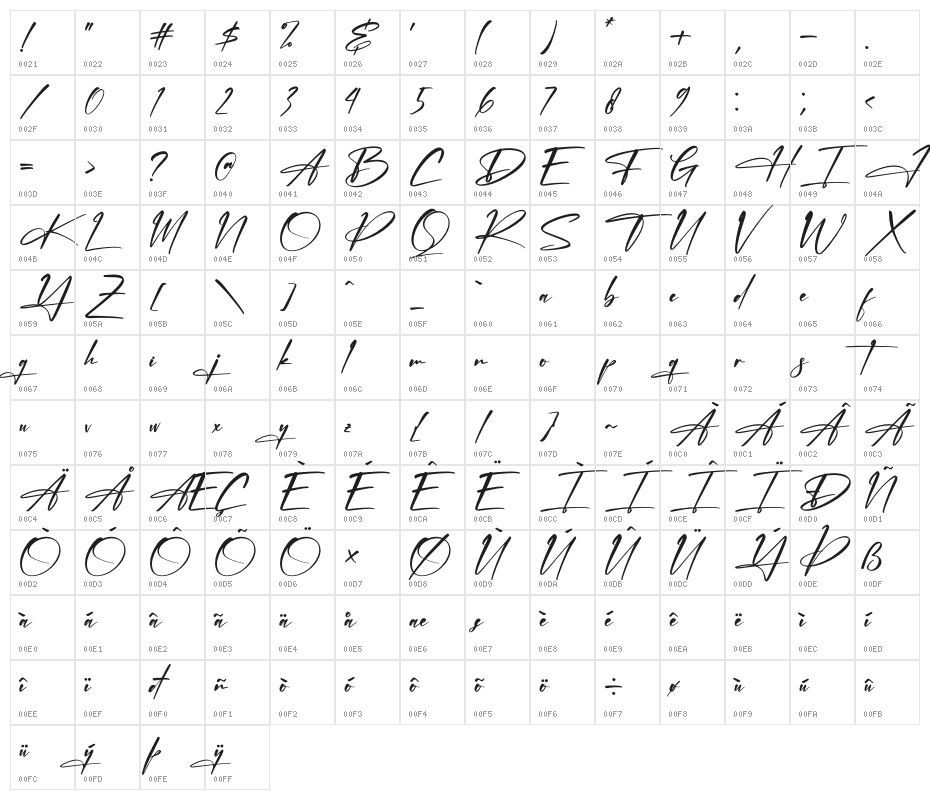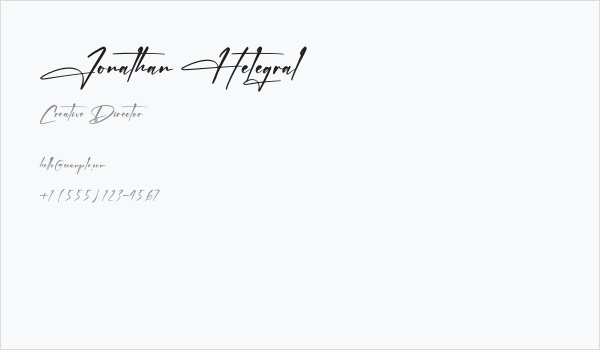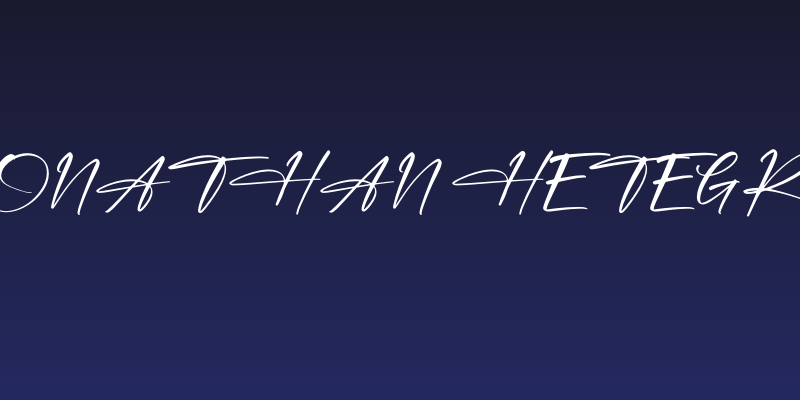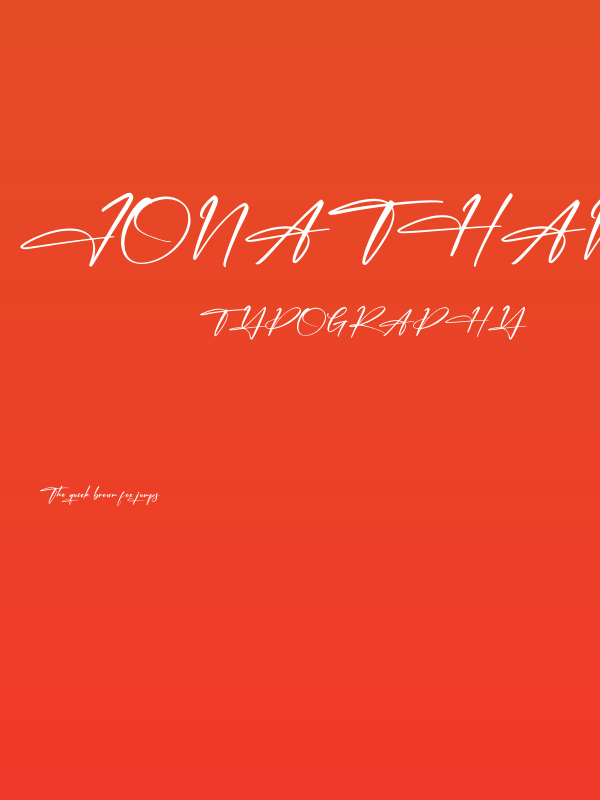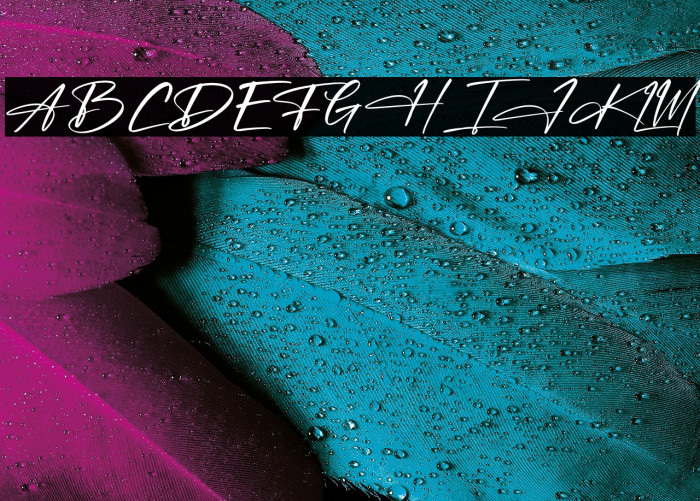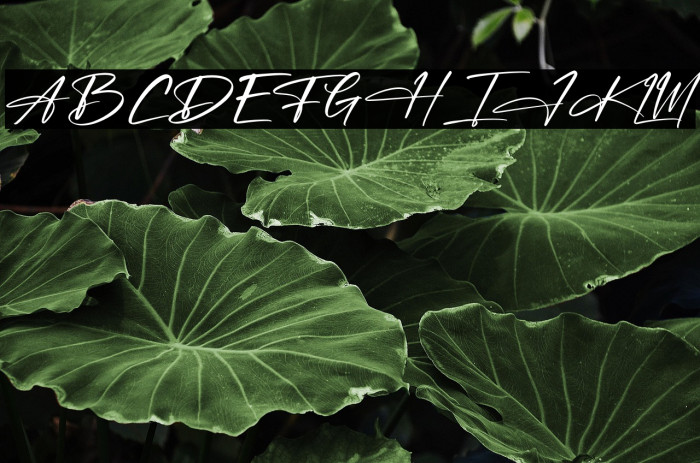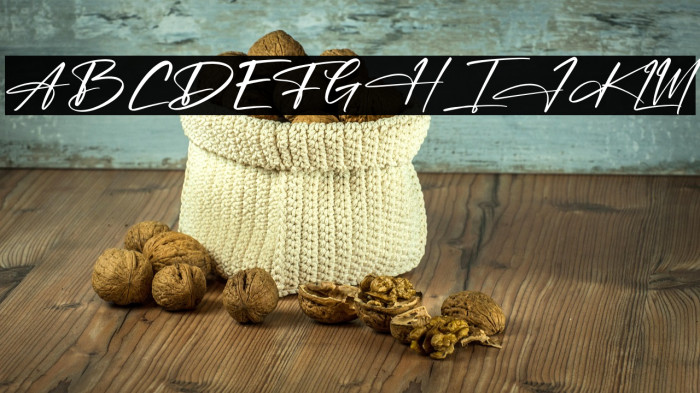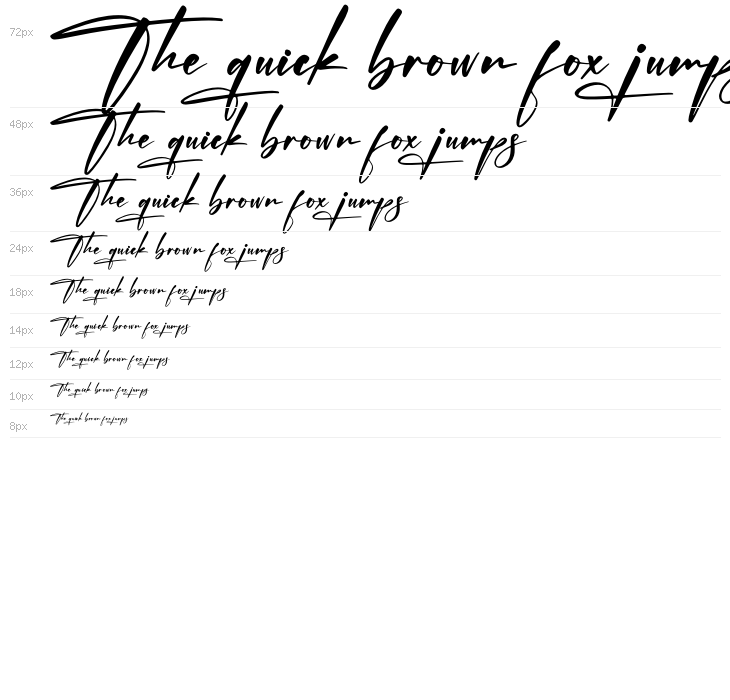
Jonathan Hetegral Font
Jonathan Hetegral Description
This font exudes a dynamic and expressive style, characterized by its fluid, cursive script that mimics natural handwriting. The letters are elegantly elongated with a slight slant, giving it a sense of motion and grace. The strokes vary in thickness, adding a lively contrast that enhances its visual appeal. The uppercase letters are bold and prominent, while the lowercase letters maintain a consistent flow, creating a harmonious balance. The numerals and special characters are crafted with the same attention to detail, ensuring uniformity across all elements.
| Use Case | Logos, Invitations, Personal Correspondence |
| Proposed Projects | Ideal for wedding invitations, greeting cards, branding projects, and any design requiring a personal, handwritten touch. |